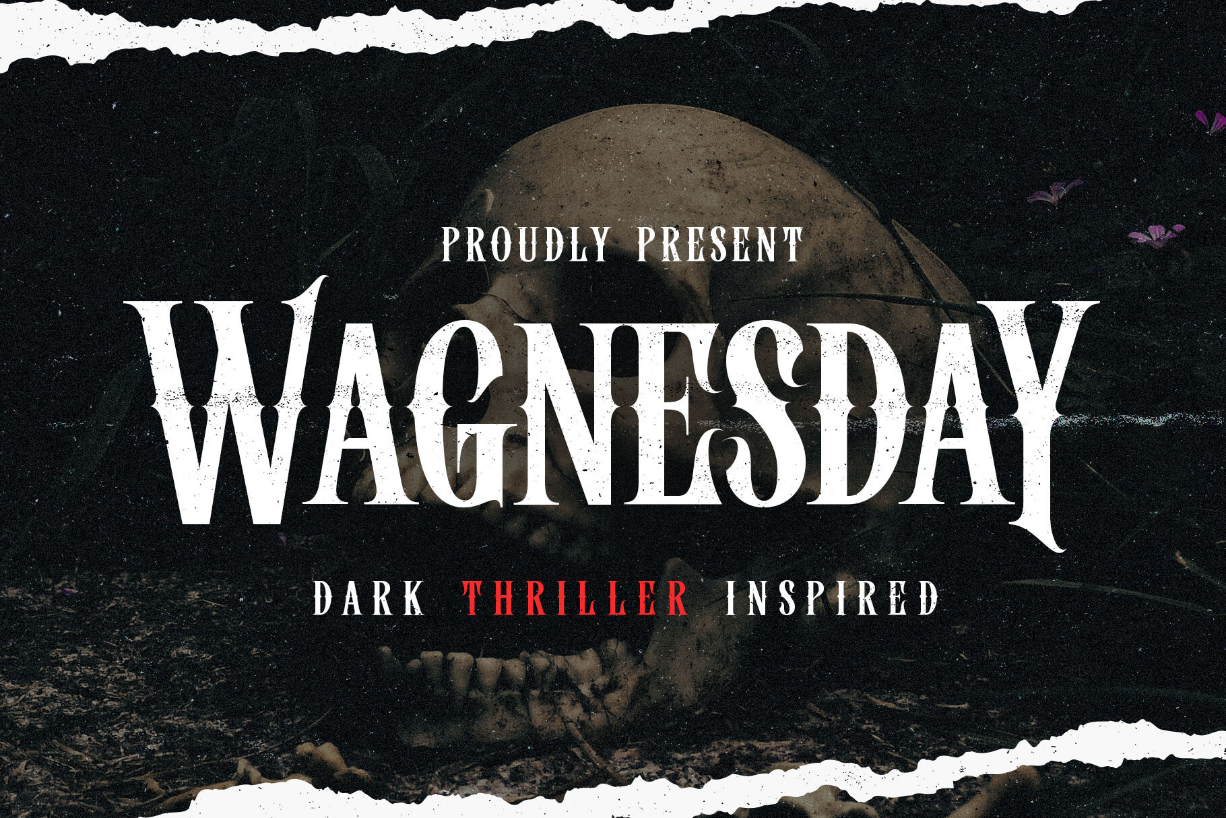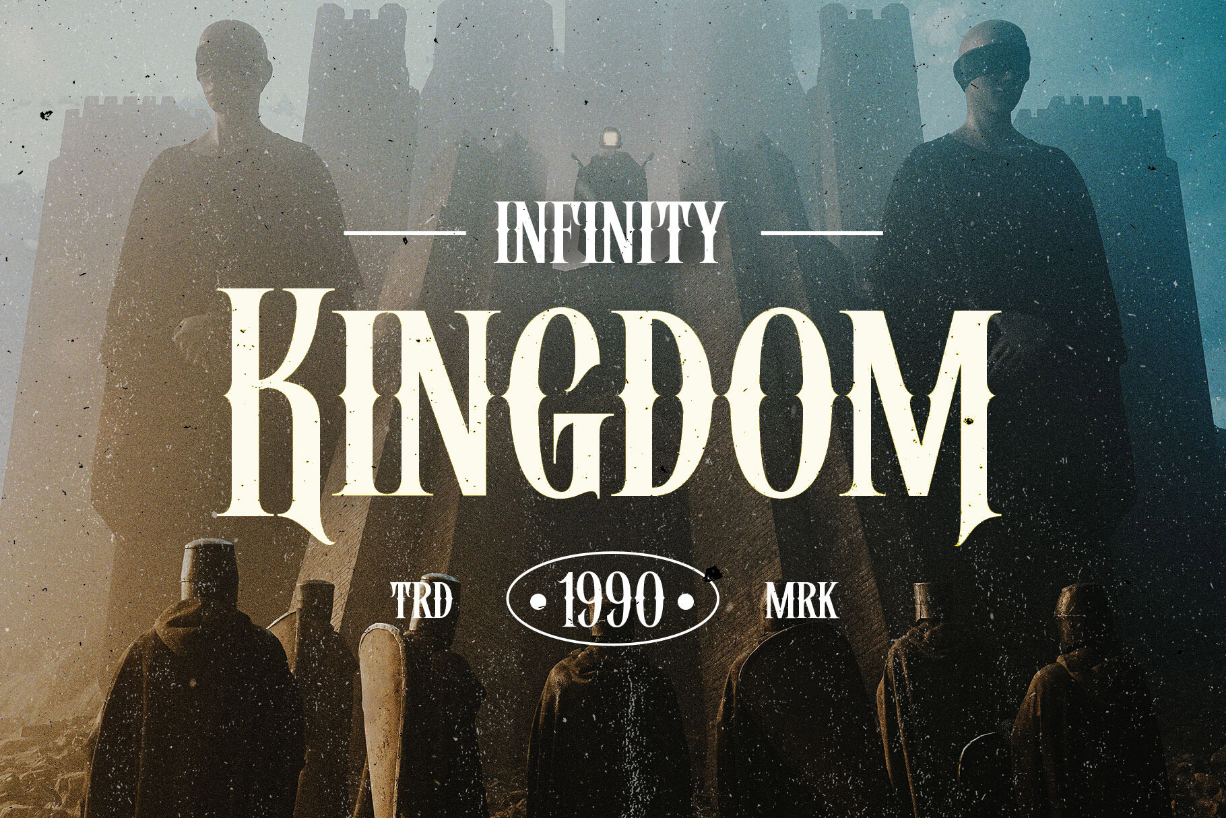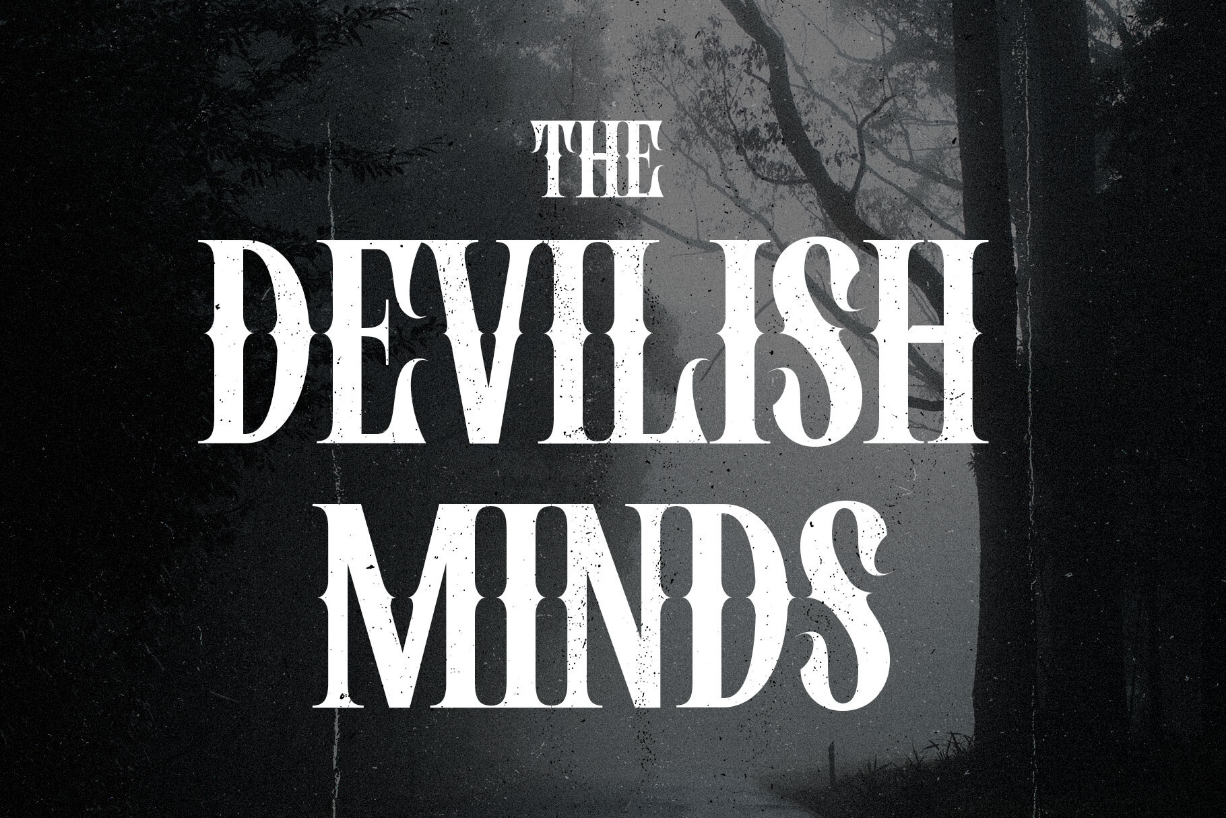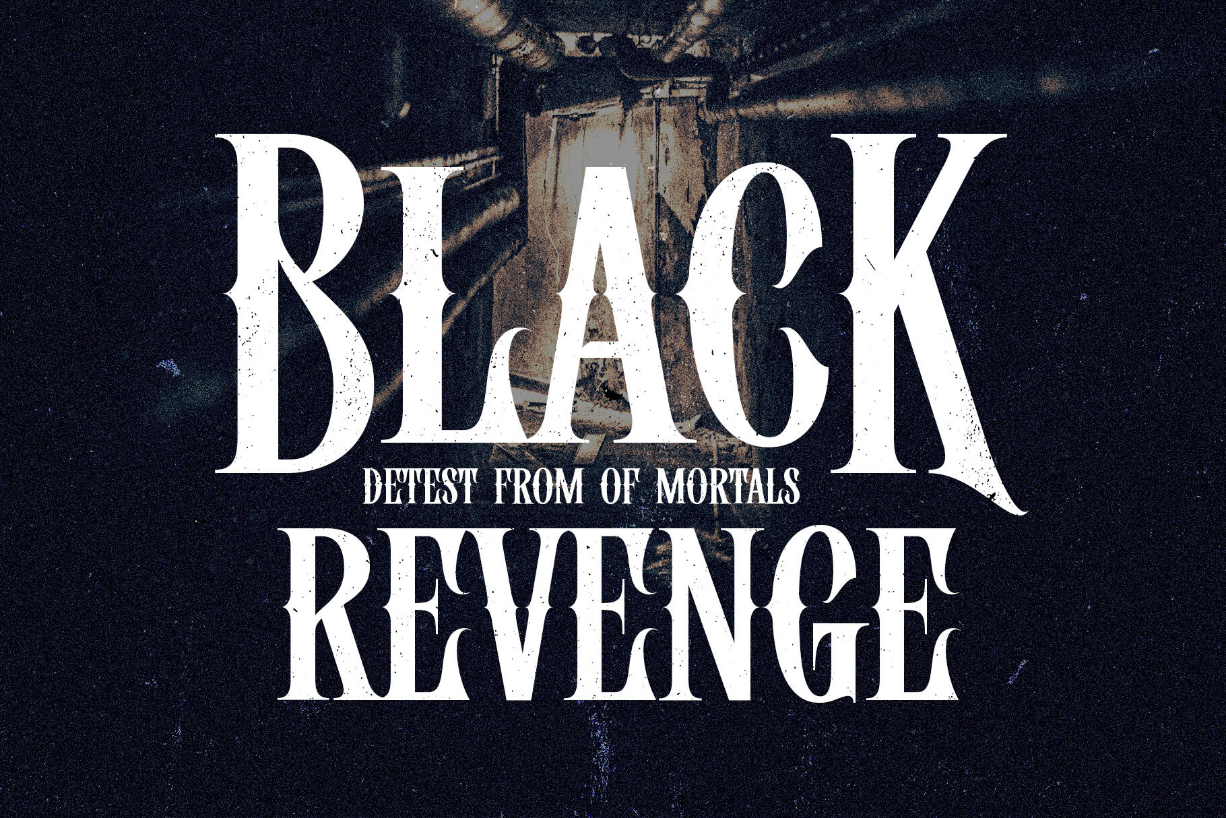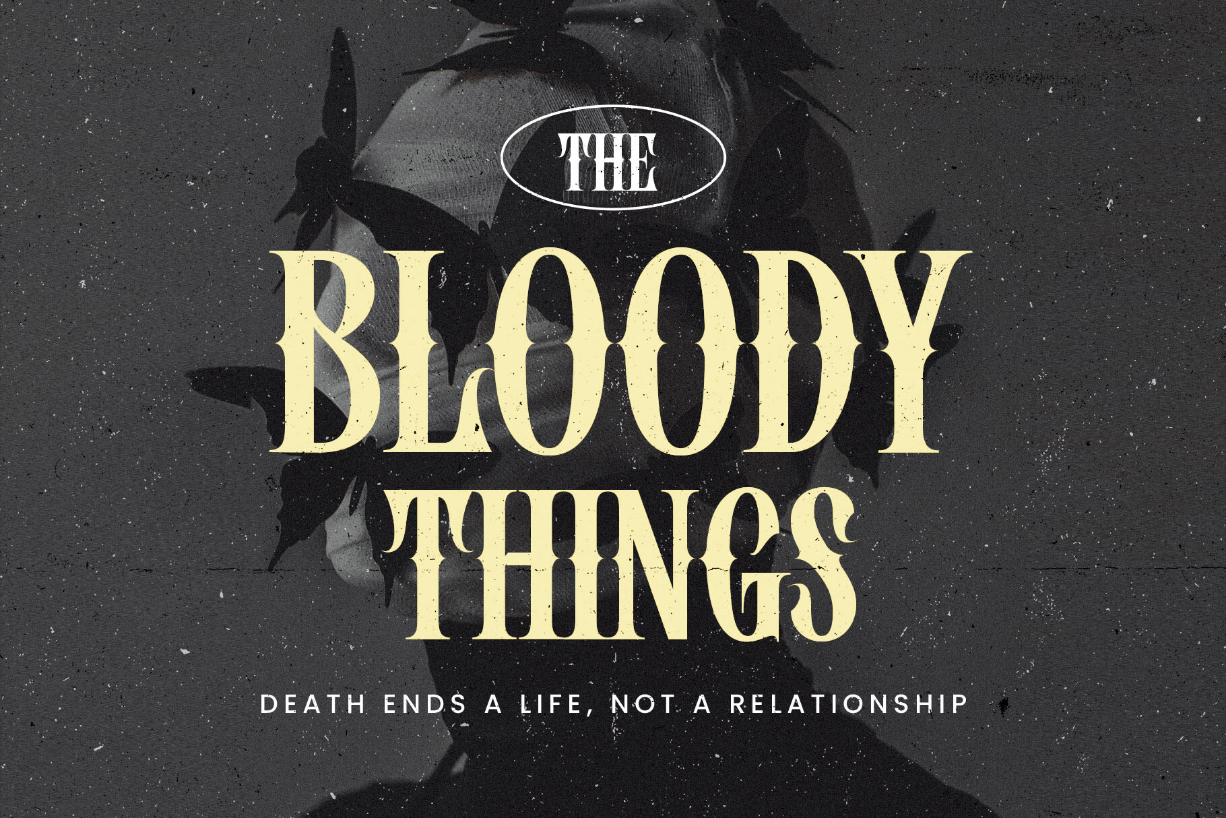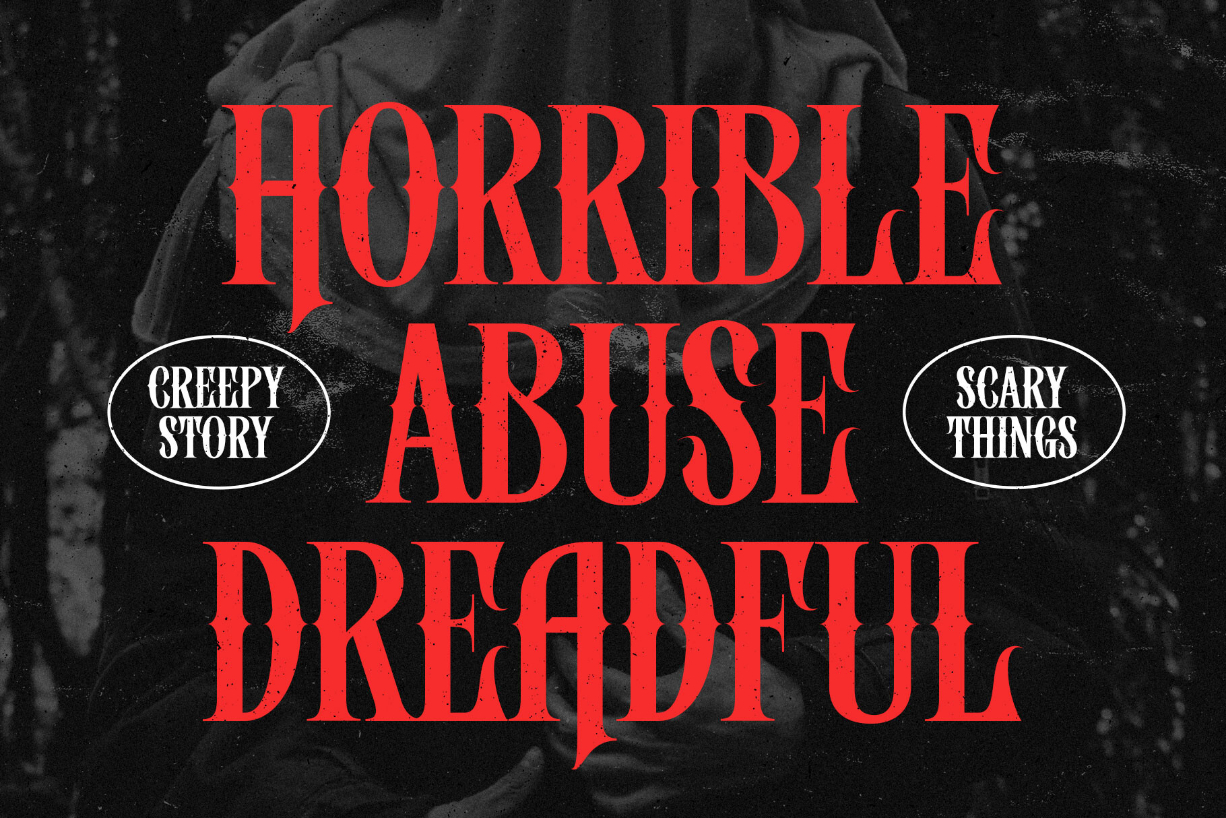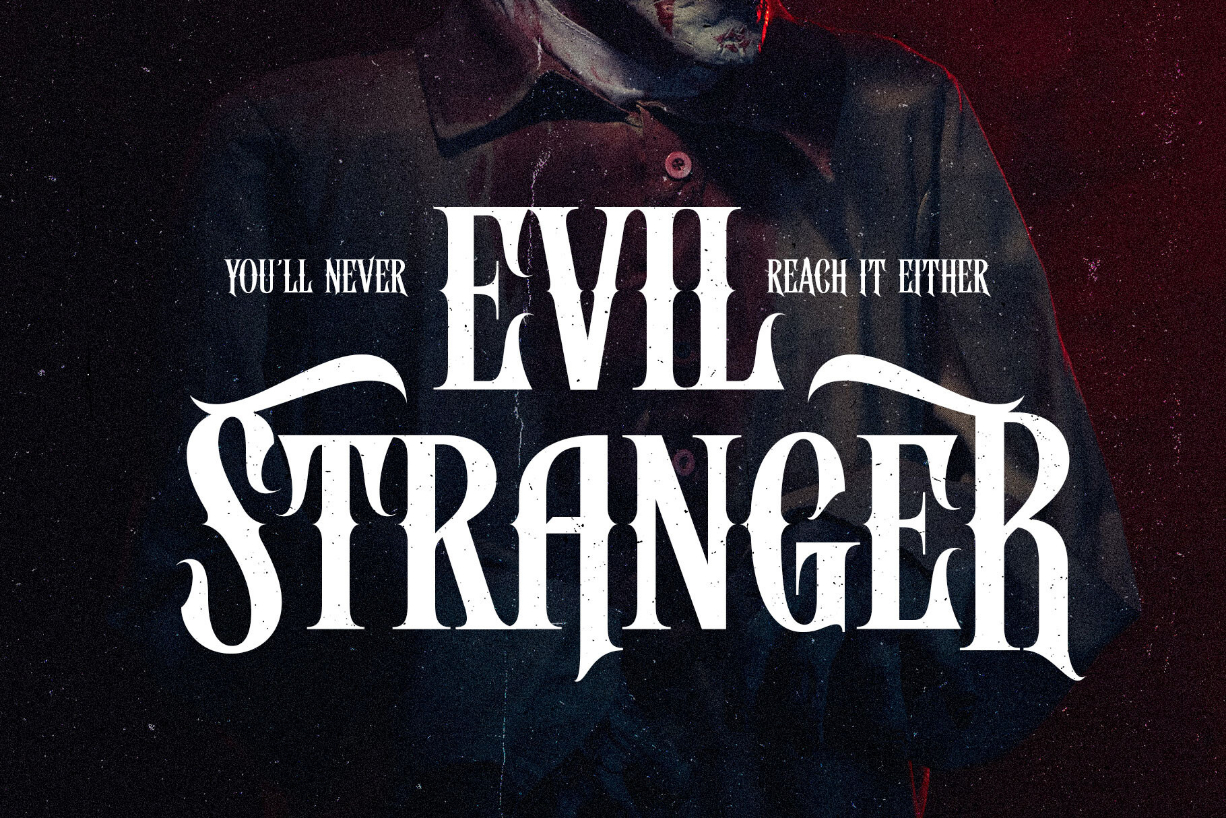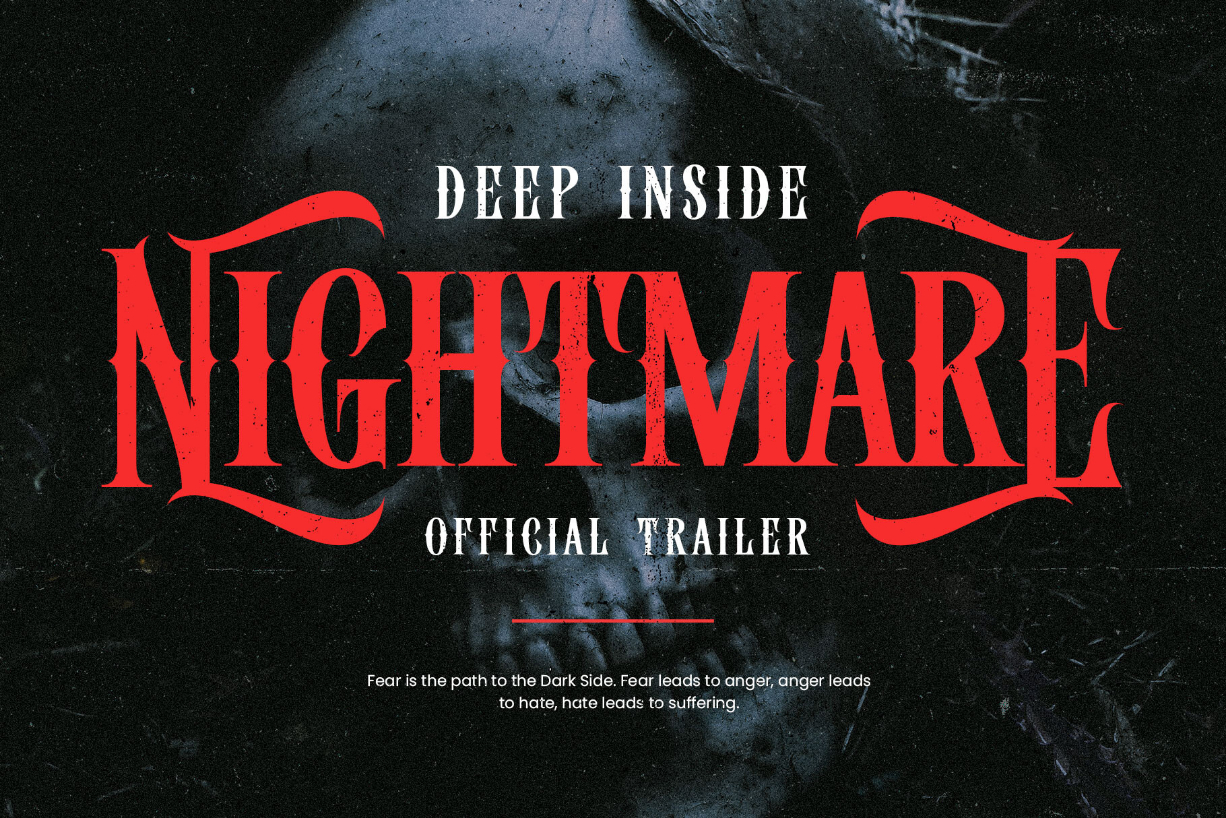
Wagnesday Font
About Wagnesday Font
Wagnesday is a bold and thick lettered blackletter font. Add it confidently to your projects, and you will love the results.